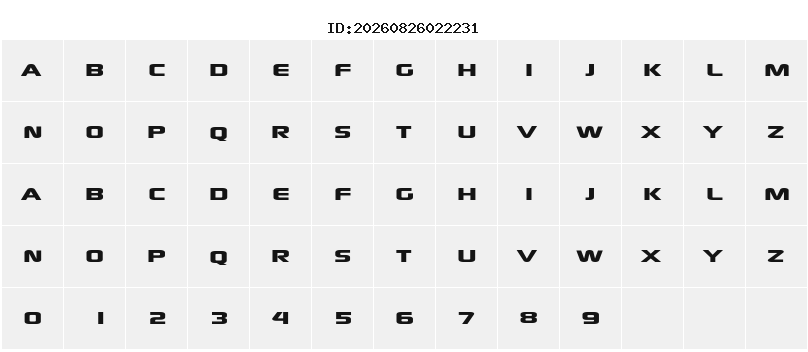
xscale Preview
• Font Name: xscale
• Font ID: Macromedia Fontographer 4.1.4 xscale
• Full Font Name: xscale
• Version: Macromedia Fontographer 4.1.4 06.09.2001
• PostScript Name: Xscale
• Character Count: 204
About xscale.ttf
xscale.ttf is a modern, elegant sans-serif font designed for ultimate readability and visual harmony. Perfect for branding, headlines, web design, and print materials.